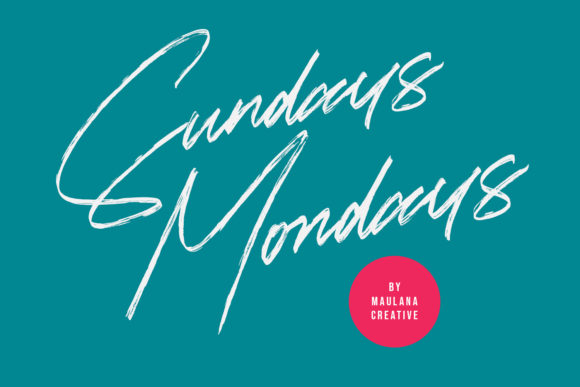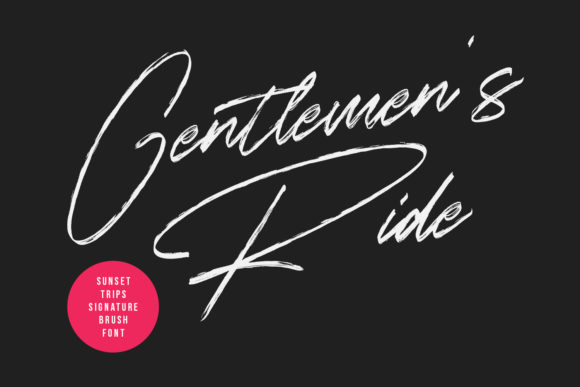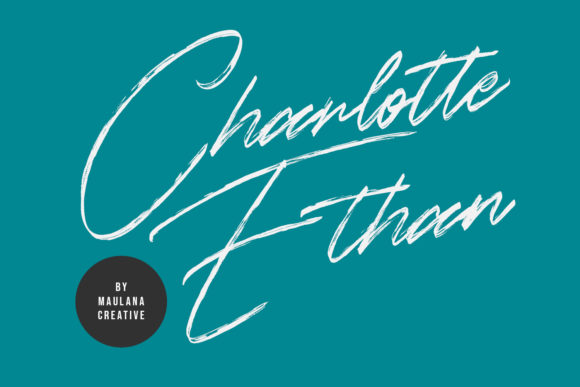
About Sunset Trips Font
Sunset Trips is an incredibly distinct, delicate and timeless handwritten font. It looks stunning on wedding invitations, thank you cards, quotes, greeting cards, logos, business cards and every other design which needs a handwritten touch.